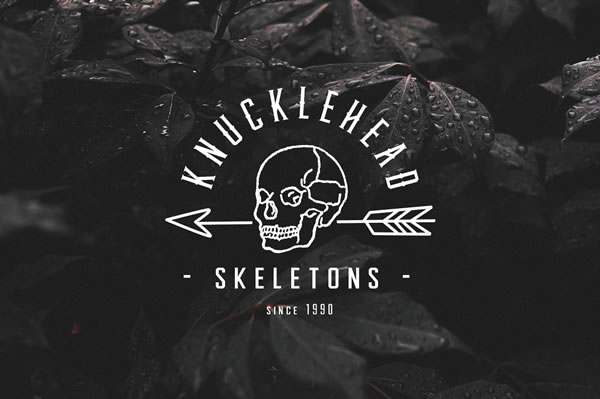
Inspired by American western culture and tattoos, Knucklehead offers 3 fonts that are perfect for creating vintage-themed designs. Masculine and edgy, this font set is perfect for expressing certain themes in your work.